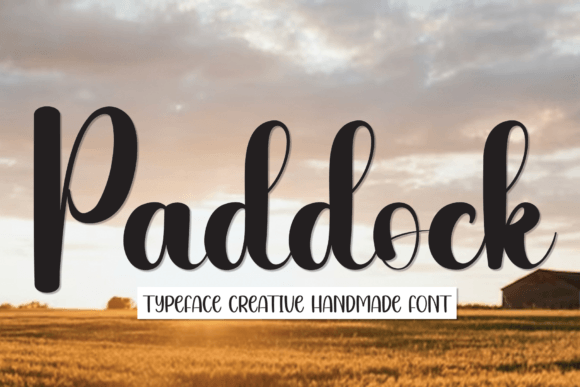
Introducing Paddock Font, the ultimate choice for adding a touch of sweetness and friendliness to your designs! This remarkable script font, created by the talented William Jhordy, is here to make your creative projects come alive.
Are you planning an anniversary card that will leave a lasting impression? Look no further than Paddock Font! Its elegant and playful nature makes it the perfect choice for expressing love and affection in a truly unique way. With its gentle strokes and charming curves, this font transforms every word into a heartfelt message, leaving a lasting impact on the recipient.
Paddock Font is not just limited to anniversary cards; it's a versatile companion for all your design needs. Whether you're creating stunning wedding invitations or crafting personalized greeting cards, this font will add a delightful and fun touch to your creations. Its fresh and neat appearance exudes a sense of modernity while maintaining a timeless appeal.
Captivate your audience with the captivating charm of Paddock Font. Its handwritten style evokes a sense of warmth and authenticity, making it the perfect choice for personal projects or professional branding. Stand out from the crowd and infuse your designs with personality, as this font effortlessly captures attention and sparks joy.
Don't settle for ordinary fonts when you can embrace the extraordinary with Paddock Font. Its extensive range of characters and ligatures allows you to create custom and visually appealing typography. Express your creativity and let your imagination run wild; with Paddock Font, the possibilities are endless.
In a world where first impressions matter, Paddock Font ensures that your designs make a lasting impact. Let this font be your accomplice in crafting memorable experiences, as it wraps your words in a delightful embrace. Unleash your creativity and let Paddock Font be the catalyst for extraordinary design journeys.